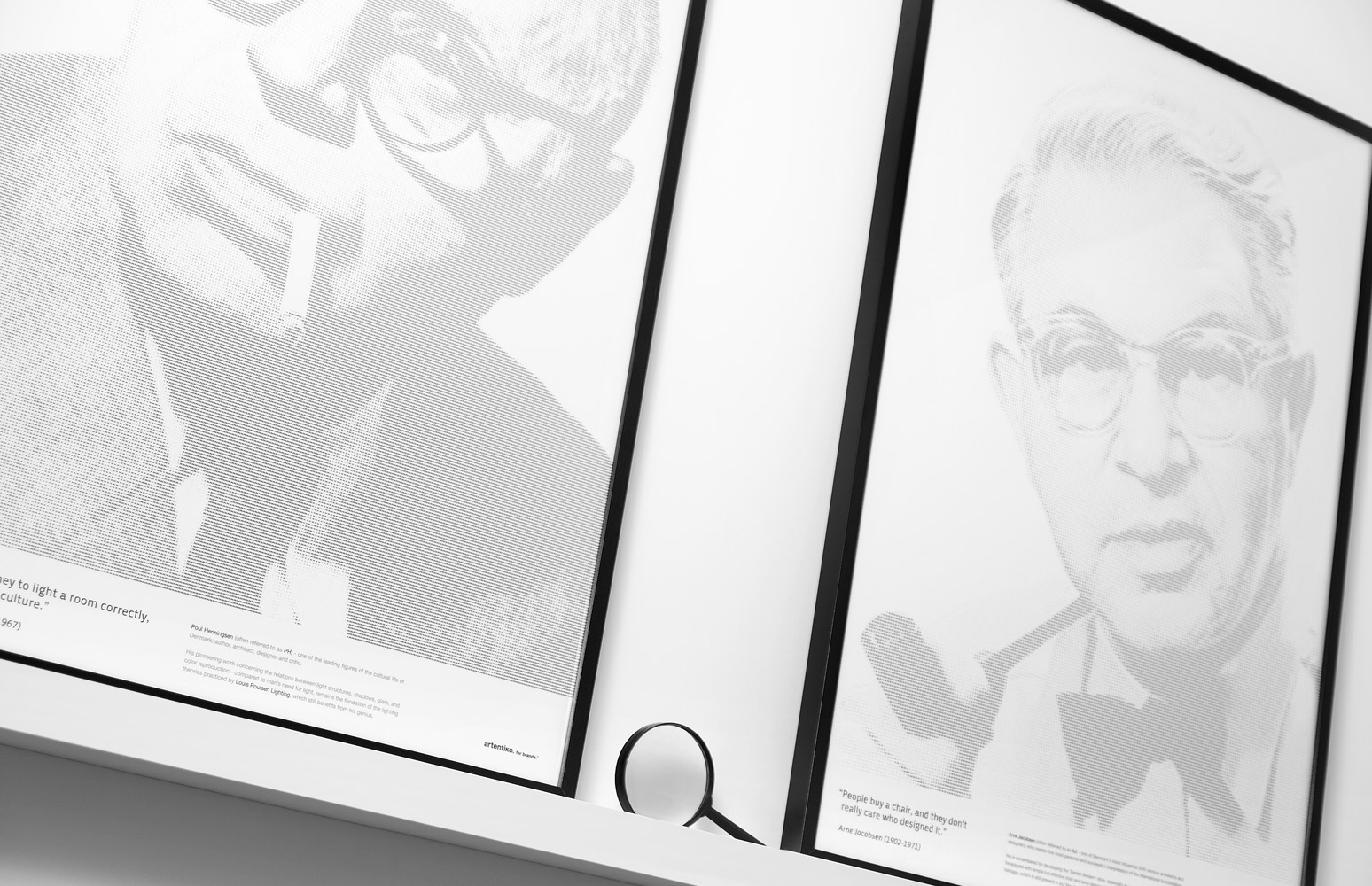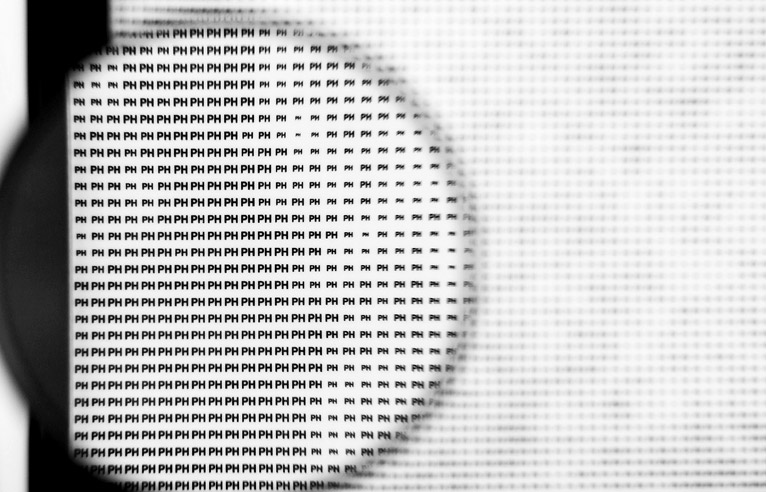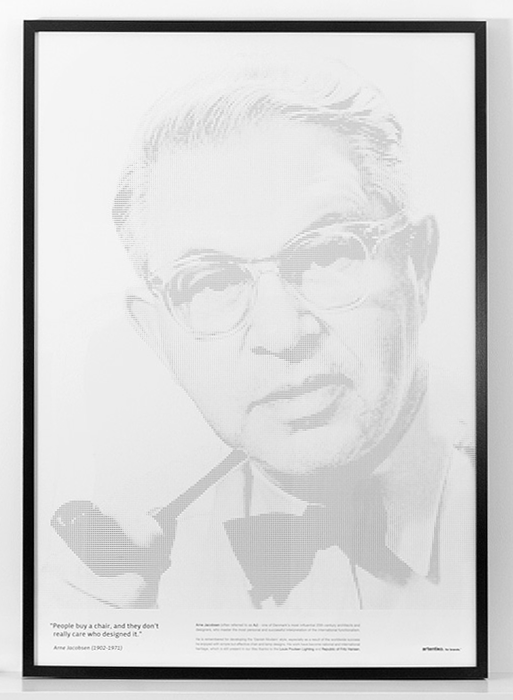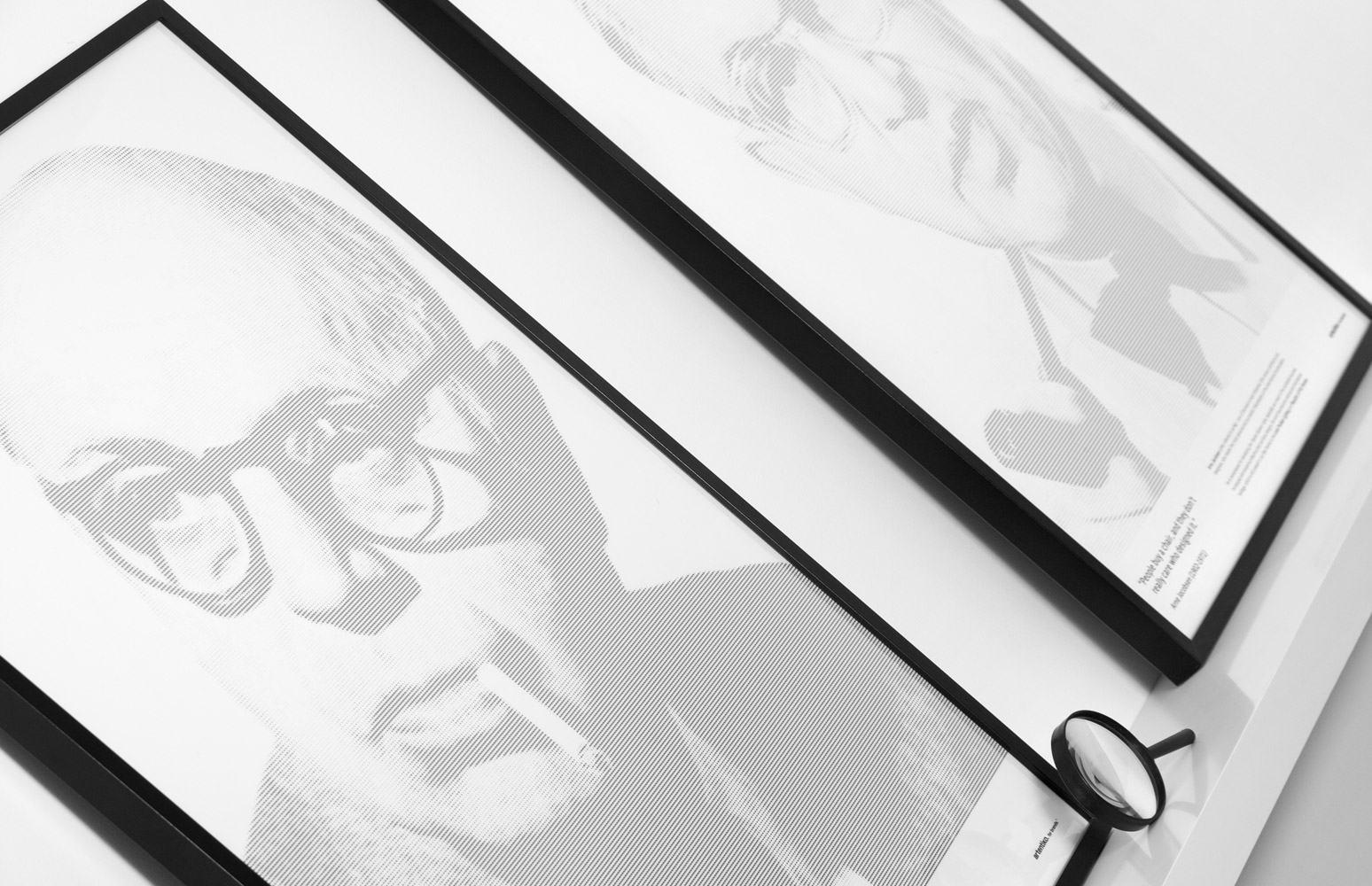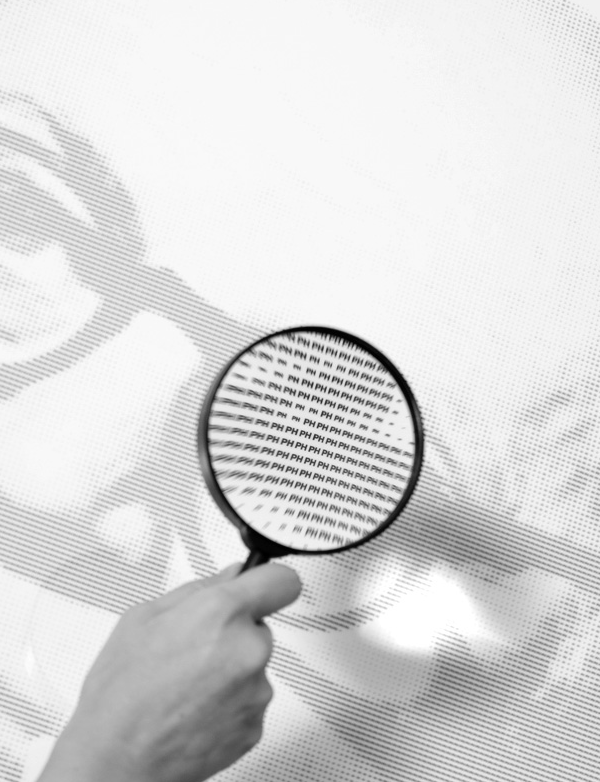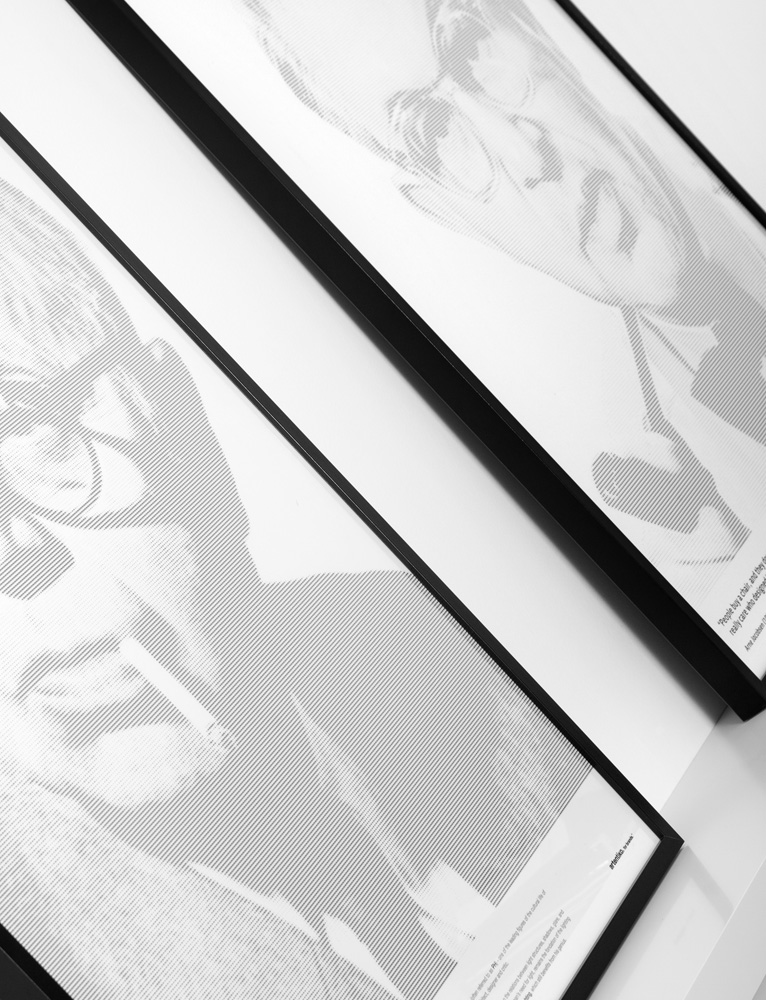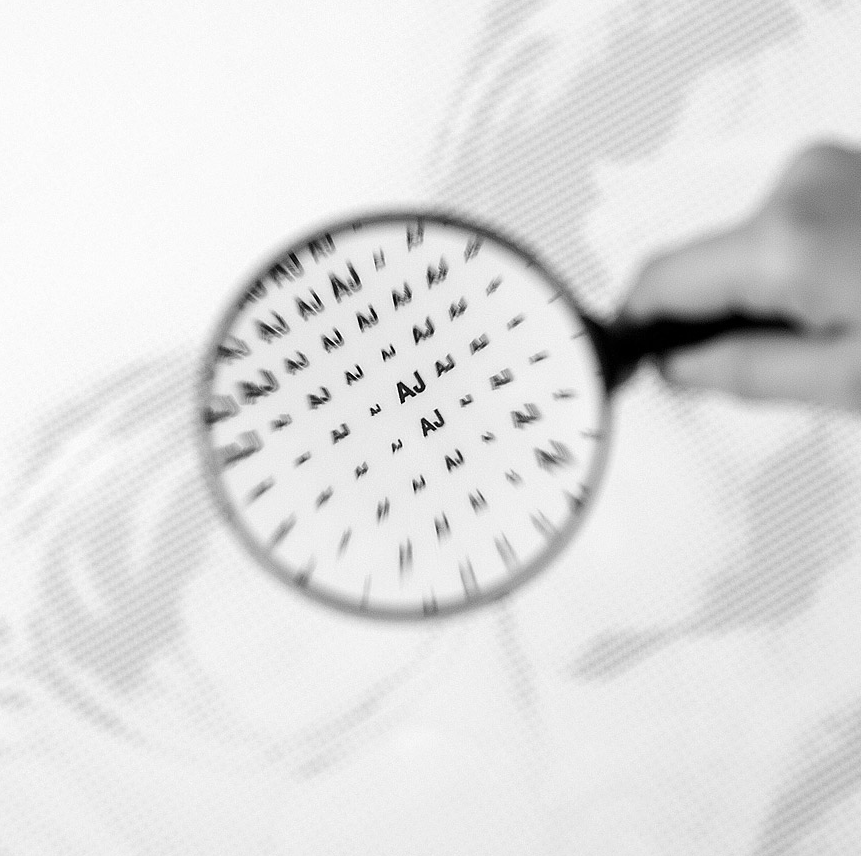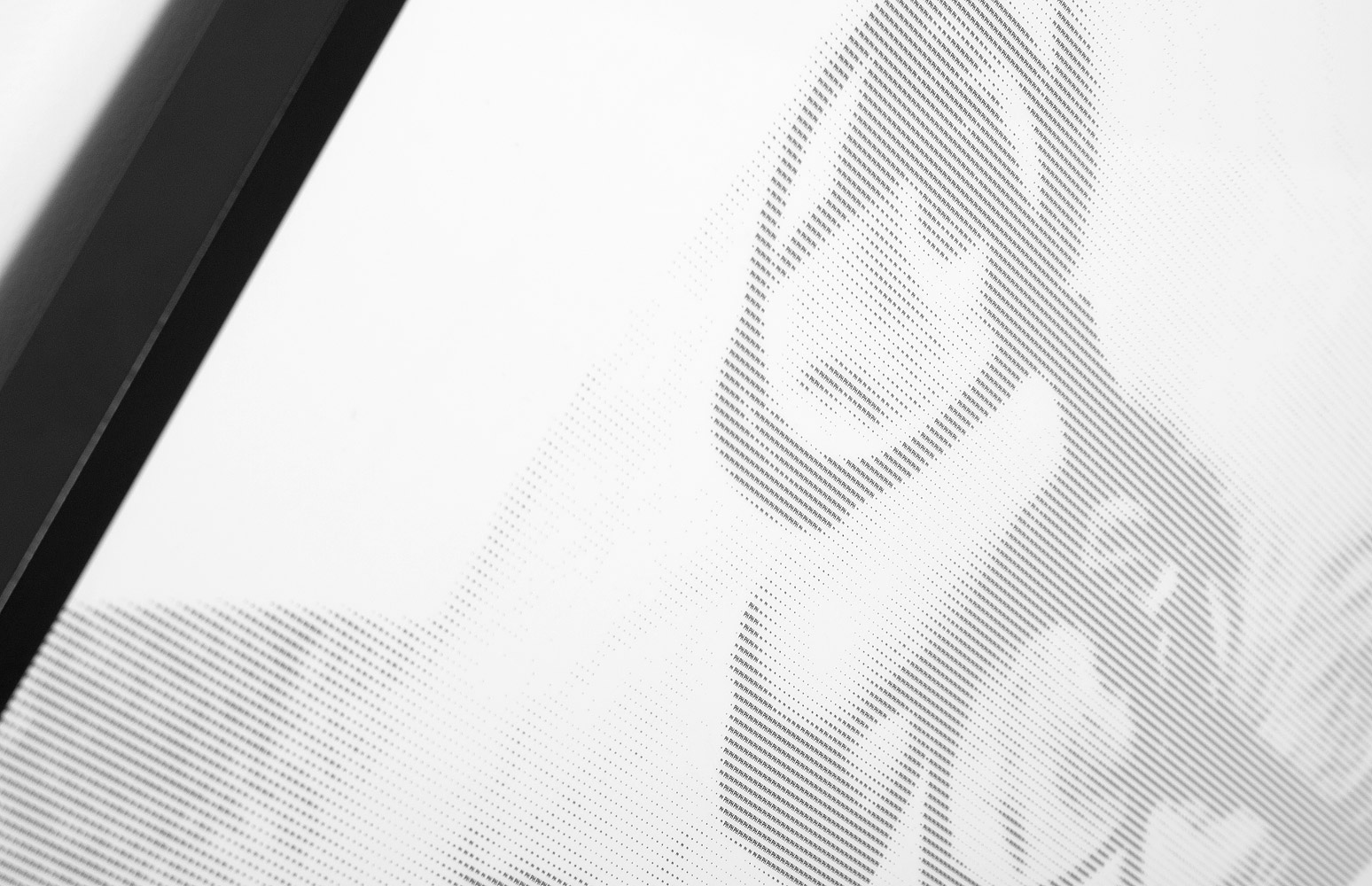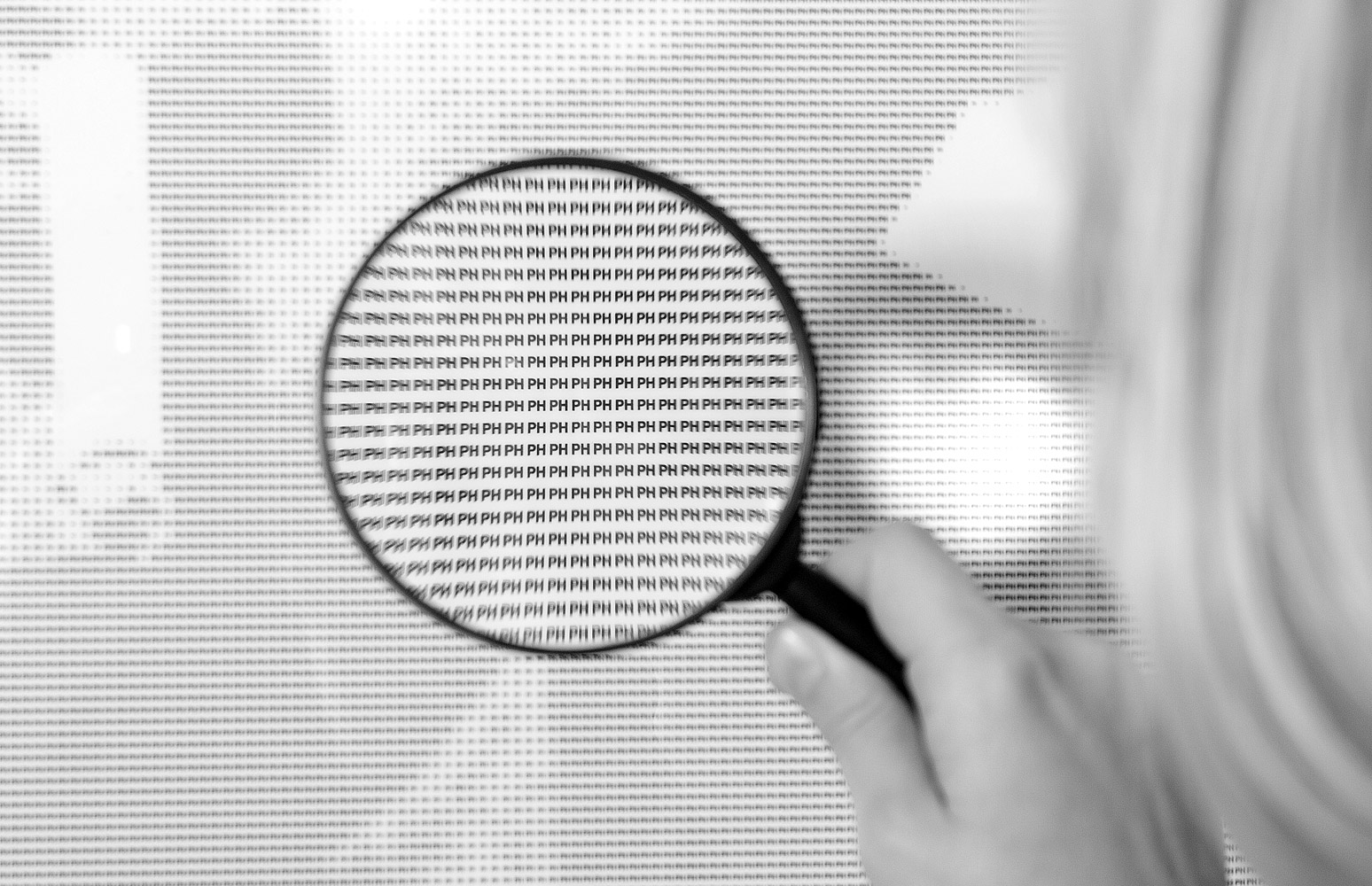
Back to the future in Black & White
How to pay tribute to two masters of Danish Design using just their initials as a visual element? That was a not very common question the people at Polish design studio For Brands decided to answer so here you are. Two highly detailed black and white posters of Arne Jacobsen and Poul Henningsen are available for purchase, part of a limited edition typographic tribute to these Danish architects that defined the 20th century futuristic design scene.